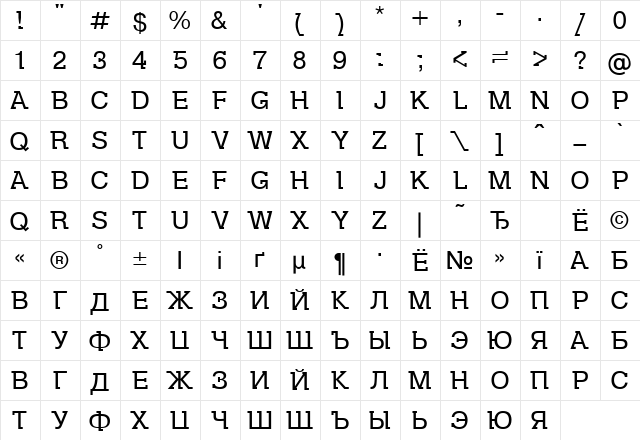
DS Kolovrat Regular
| Foundry | D-Studio (Moscow) - 1999 |
| Designer | Dubina Nikolay |
Design Context for DS Kolovrat Typeface
DS Kolovrat is a composed and adaptable typeface that performs quietly and consistently across a wide range of design contexts.